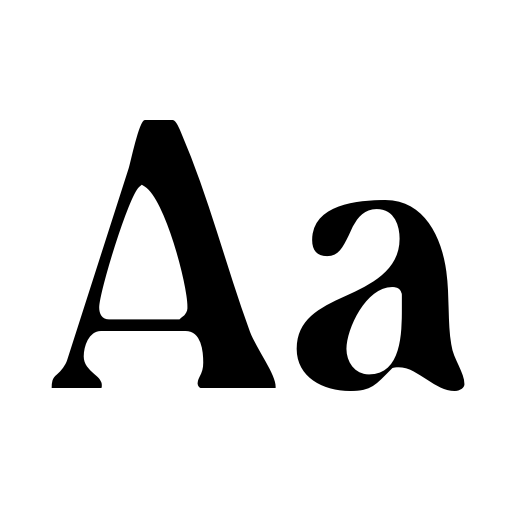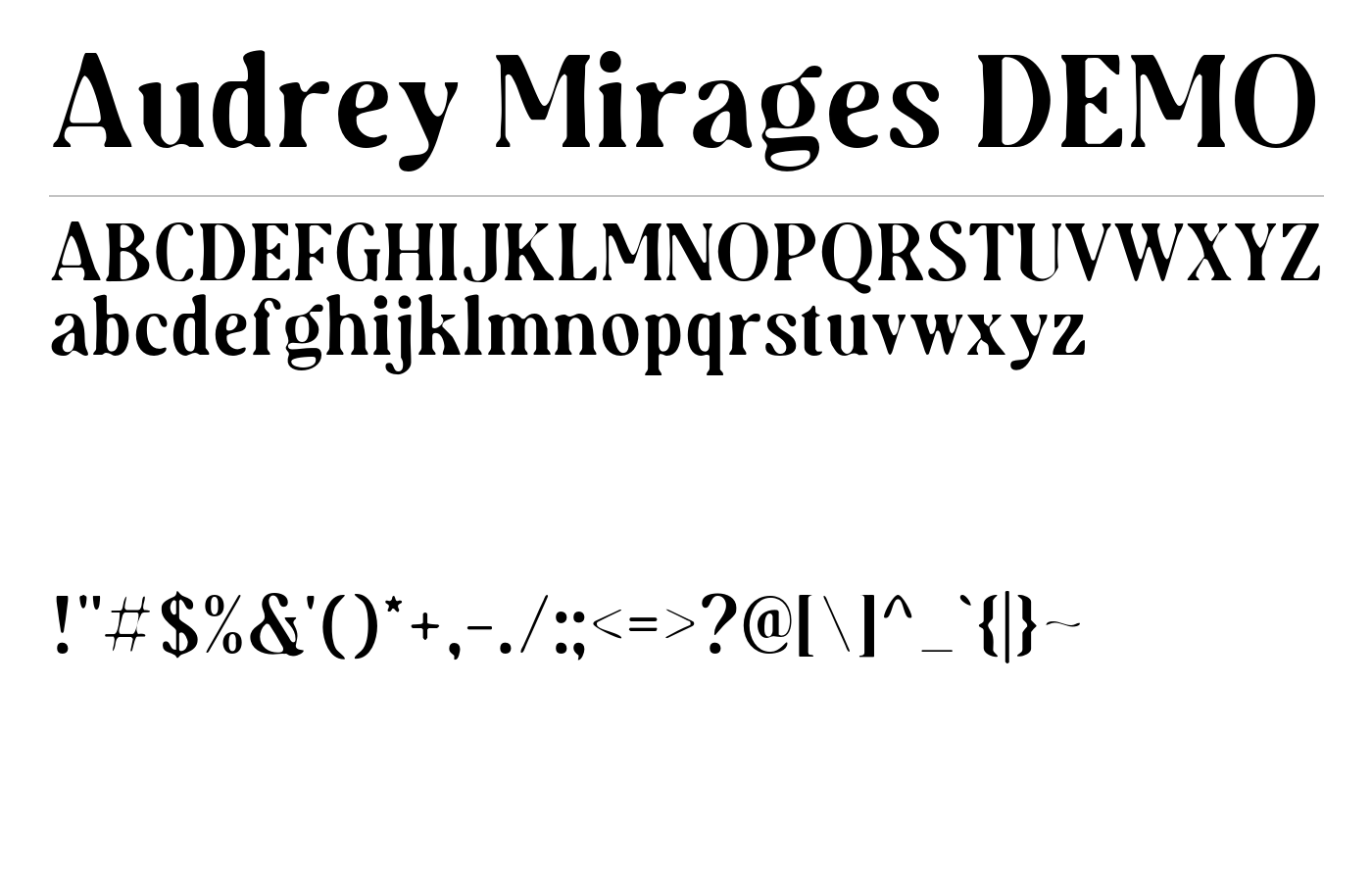
Audrey Mirages DEMO is a distinctive serif font with a balanced blend of classic and quirky character. It features medium contrast strokes, sharp serifs, and a slightly condensed width that gives it a refined yet approachable feel, making it ideal for editorial headlines, branding, and packaging where a vintage yet contemporary touch is needed. Its unique letterforms and playful details add personality without sacrificing readability, lending an elegant but lively vibe to any design.
| Font family | Audrey Mirages DEMO Font |
| Designer | Sarid Ezra |